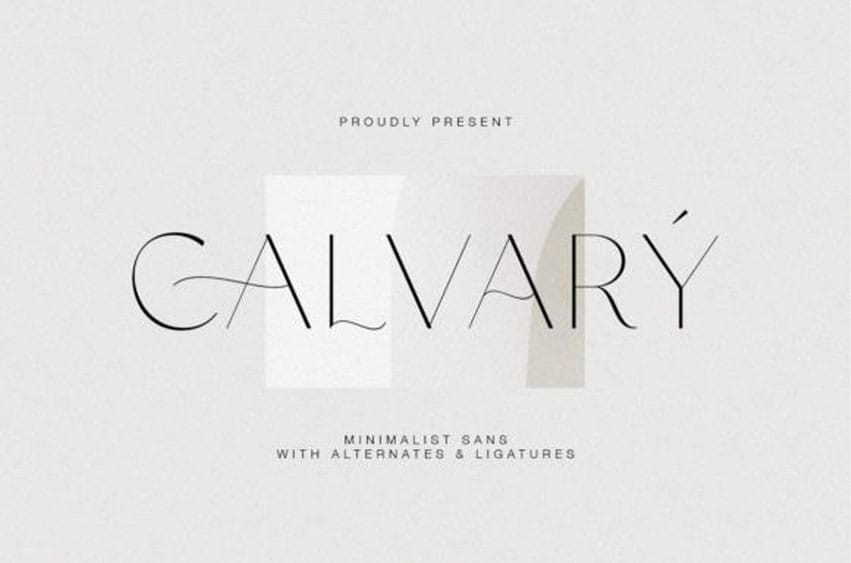
Calvary Font is a light and luxurious sans-serif typeface featuring a variety of ligatures and alternate characters. This font is perfect for any project that requires an elegant and sophisticated appearance.
With its beautiful and delicate ligatures and alternates, Calvary Font brings a minimalist yet stunning quality to your designs. You can achieve the best results by combining the ligatures and alternates with the regular base. Additionally, this font supports multiple languages!